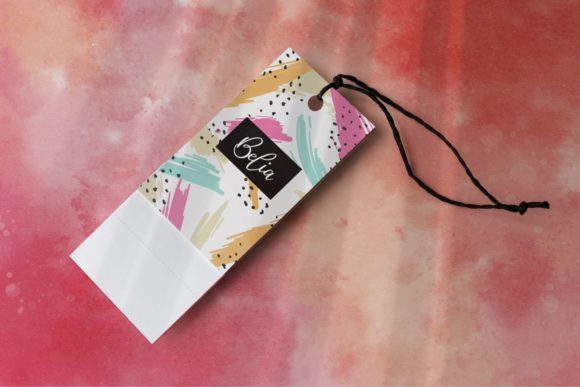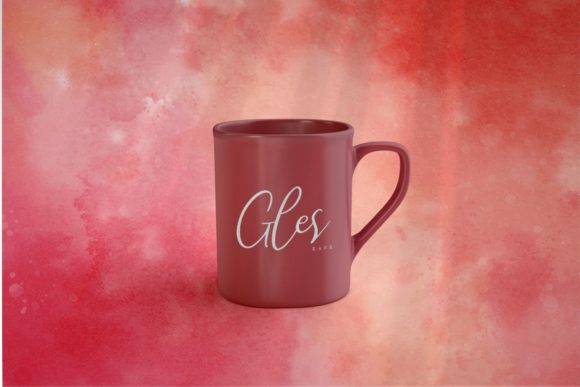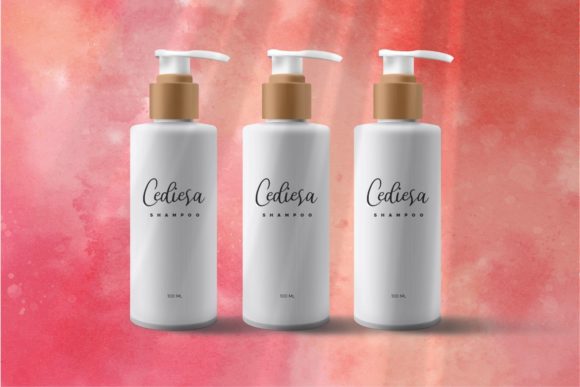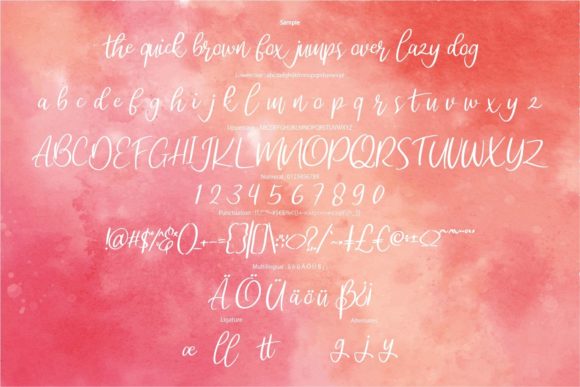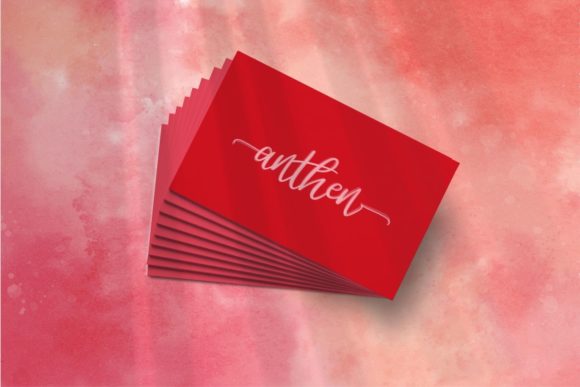
Anrise Font
About Anrise Font
Anrise is an exquisite and delicate script font that exudes elegance and sophistication. With its intricate and graceful letterforms, this font is perfect for adding a touch of luxury and beauty to your design projects.
The beauty of Anrise lies in its intricate details and delicate strokes. Each letter is carefully crafted, with flowing curves and fine lines that create a sense of elegance and refinement. The overall result is a font that feels luxurious and captivating.
The versatility of Anrise is another standout feature. Its timeless style makes it suitable for a wide range of design projects. Whether you’re creating wedding invitations, branding materials, product packaging, or any other creative endeavor, Anrise adds a touch of class and sophistication to your designs.
The script nature of Anrise allows for fluid and graceful connections between letters, creating a sense of harmony and flow. This makes it ideal for headlines, logos, and other prominent design elements that require attention and impact.
Anrise is designed to be versatile and adaptable, allowing it to complement various design styles and themes. Whether you’re aiming for a classic, elegant look or a modern, sophisticated aesthetic, Anrise can be tailored to suit your needs.
The beauty of Anrise extends beyond its appearance. It is designed to be user-friendly and accessible, allowing for easy and smooth usage. Additionally, Anrise supports OpenType features, including swashes, ligatures, and alternate characters, giving you even more options to customize and enhance your designs.
In summary, Anrise is an incredibly beautiful and delicate script font that adds a luxury spark to any design project. Its versatile style, intricate details, and timeless elegance make it a perfect choice for creating spectacular designs. Whether you’re designing wedding invitations, branding materials, or any other creative project, Anrise will captivate and inspire, leaving a lasting impression on your audience.